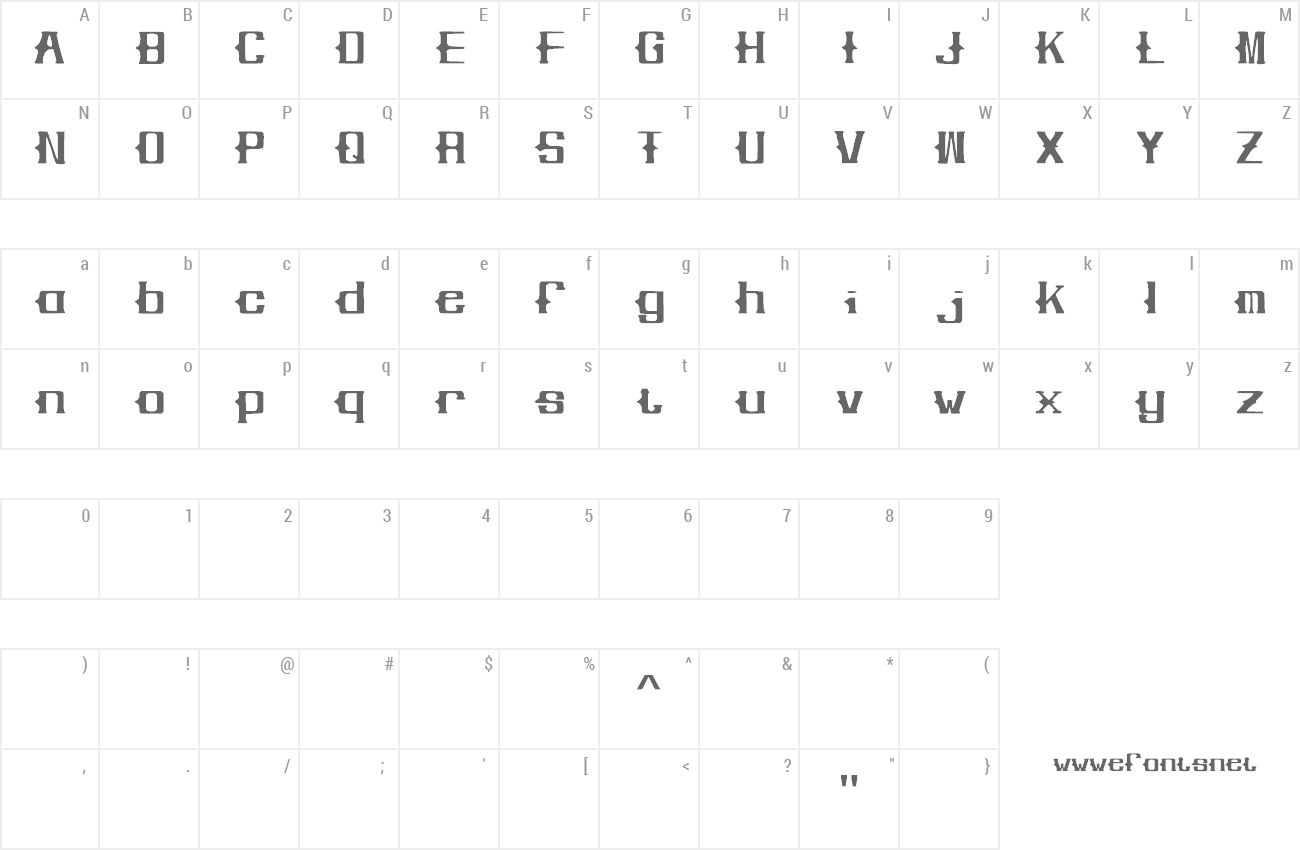
| Font name: | Jewell |
| Author: | Julia Ho Lia Jewell White |
| Note by Julia Ho Lia Jewell White | |
| Created this font inspired by the old bible fonts. |